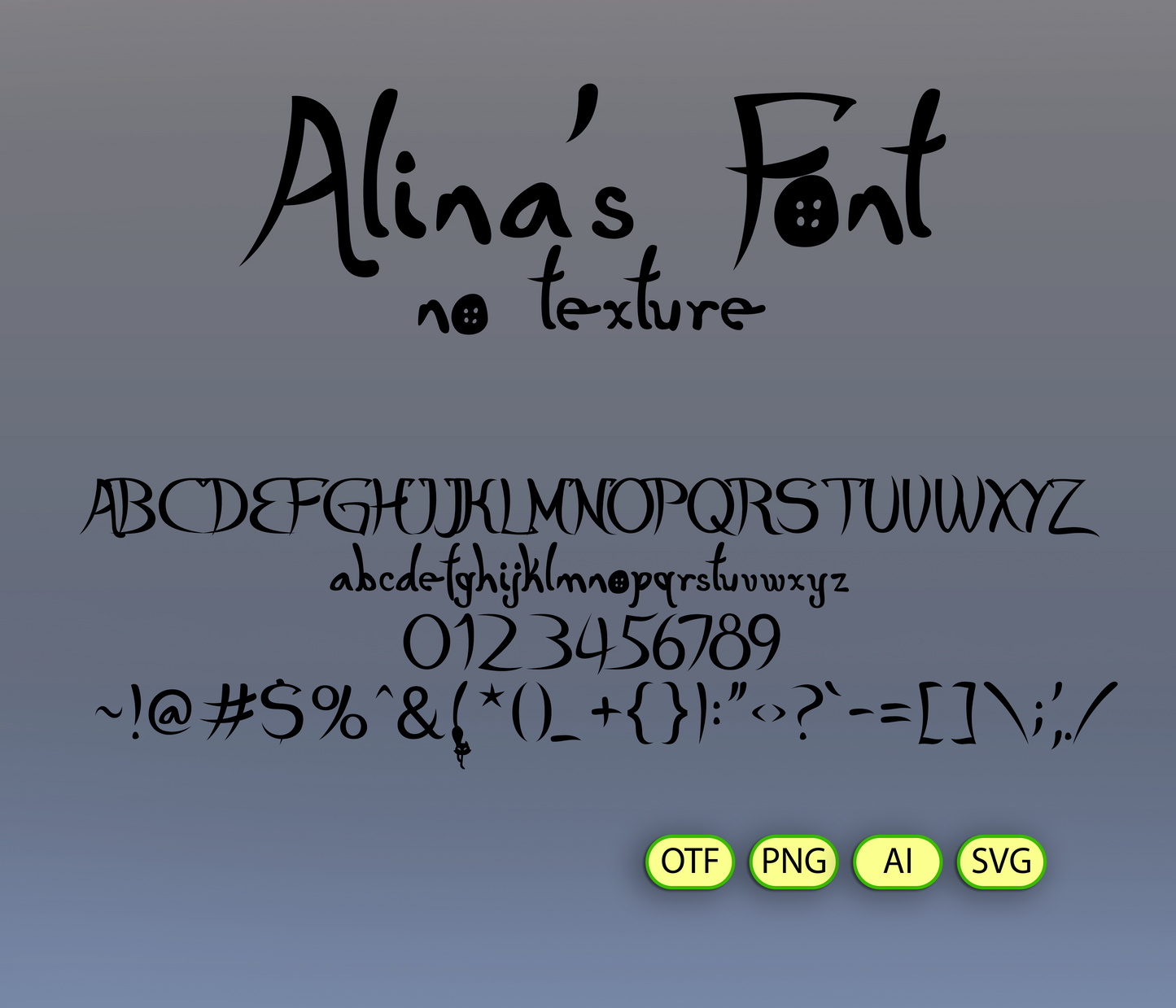
Doll's Eye Dreamscape Font
Embark on a journey through the looking glass with our Doll's Eye Dreamscape font. This enchanting typeface captures the essence of a young explorer's venture into a mirror world, blending childlike curiosity with a subtle touch of the surreal. Ideal for projects aiming to evoke a sense of wonder tinged with gentle unease.
Our Doll's Eye Dreamscape font showcases a unique, hand-stitched appearance with slightly misaligned characters that hint at the wavering line between reality and fantasy. Perfect for:
From promotional content for fantasy-themed events to merchandise design for enthusiasts of magical tales, or adding an enchanting flair to personal projects, this font effectively communicates the wonder and subtle intrigue of exploring alternate realities. Ready to infuse your creations with the spirit of button-eyed adventures? This font is your gateway to captivating, imaginative design.